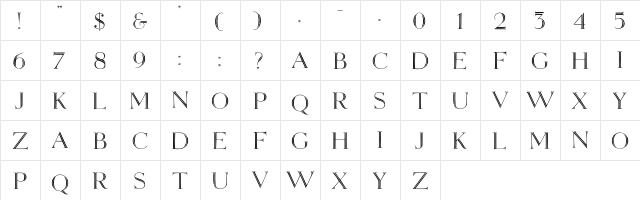
Elizabeth ANN
Design Context for Elizabeth Typeface
Elizabeth is a composed and adaptable typeface that performs quietly and consistently across a wide range of design contexts.